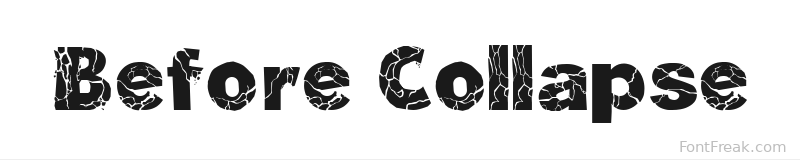
Before Collapse
About Before Collapse
Before Collapse is a striking display typeface designed by Galdino Otten Fonts, captivating audiences with its unique blend of boldness and artistic flair. This font falls into the display category, making it ideal for eye-catching designs that demand attention. Its visual characteristics are defined by a heavy stroke weight and a deliberate lack of uniformity, which creates a dynamic, almost fragmented appearance. The irregular edges and textured finish evoke a sense of decay and imperfection, enhancing its visual appeal. The spacing between the letters is thoughtfully arranged to maintain legibility while also contributing to its distinctive character.
This typeface is particularly well-suited for a variety of creative applications. It can elevate wedding invitations, lending a modern yet romantic touch. Its bold nature makes it perfect for movie posters, where it can effectively convey drama and intrigue. Additionally, Before Collapse works wonderfully for restaurant menus, giving a unique twist that can capture the essence of a trendy eatery. Graphic designers and content creators will find this font a valuable asset for branding projects, merchandise design, or any visual communication that aims to stand out.
Targeted at graphic designers, small business owners, and content creators, Before Collapse offers a free and versatile option for those looking to infuse their work with personality and originality. The font's ability to evoke emotion and curiosity sets it apart in a crowded digital landscape. With the Before Collapse font free download, you can easily incorporate this exceptional typeface into your upcoming projects, ensuring your designs are both memorable and impactful. Embrace the unique character of Before Collapse and make a statement with your typography today.